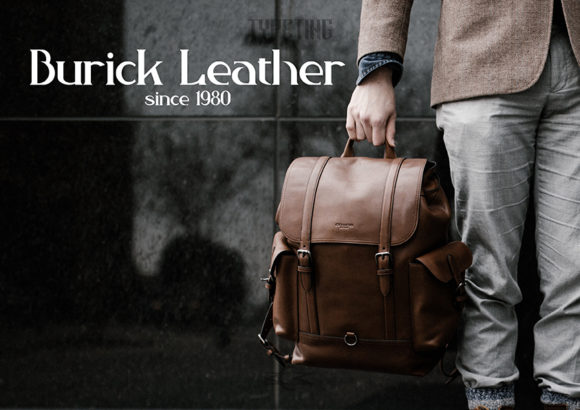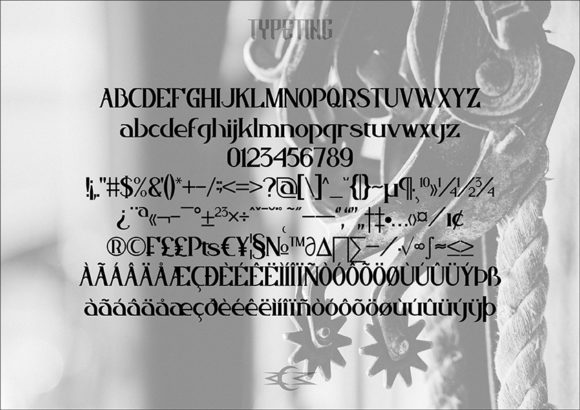
Gunslinger Font: A Timeless Classic for Vintage-Inspired Designs
Are you a designer or crafter looking for a font that exudes a bold, vintage charm? Look no further than the Gunslinger font! This classic font has been a staple in the design world for its rugged, yet elegant feel that’s perfect for a variety of creative projects. In this article, we’ll dive into the world of Gunslinger font, exploring its history, features, and uses, as well as provide tips on how to incorporate it into your designs.
A Brief History of Gunslinger Font
Gunslinger font has its roots in traditional Western typography, inspired by the classic fonts used in vintage posters, wanted signs, and newspaper headlines from the Wild West era. Its bold, rugged design was meant to evoke a sense of adventure, danger, and freedom – characteristics that are still associated with the American frontier spirit today.
Over the years, Gunslinger font has evolved to become a versatile and timeless classic, suitable for a wide range of design applications. Whether you’re creating a logo, poster, invitation, or craft project, Gunslinger font is sure to add a touch of vintage flair and sophistication.
Key Features of Gunslinger Font
So, what makes Gunslinger font so special? Here are some of its key features:
- Bold and rugged design: Gunslinger font boasts a bold, rugged design that’s perfect for making a statement.
- Vintage feel: Its classic design is reminiscent of traditional Western typography, evoking a sense of nostalgia and timelessness.
- High legibility: Despite its bold design, Gunslinger font remains highly legible, making it suitable for use in a variety of contexts, from headlines to body text.
- Versatile: Gunslinger font can be used in a wide range of design applications, from logos and posters to invitations and craft projects.
Uses for Gunslinger Font
Gunslinger font is perfect for any design project that requires a vintage, bold, and eye-catching look. Here are some ideas to get you started:
- Logos and branding: Use Gunslinger font to create a bold and memorable logo that’s sure to stand out.
- Posters and flyers: Gunslinger font is perfect for creating eye-catching posters and flyers that require a vintage flair.
- Invitations and stationery: Add a touch of elegance and sophistication to your invitations and stationery with Gunslinger font.
- Craft projects: Gunslinger font is a great choice for craft projects, such as handmade cards, scrapbooking, and DIY signs.
Tips for Using Gunslinger Font
Here are some tips for incorporating Gunslinger font into your designs:
- Pair with complementary fonts: Gunslinger font pairs well with clean, sans-serif fonts like Arial or Helvetica.
- Use contrasting colors: Use contrasting colors to make your text stand out and add visual interest.
- Experiment with sizes and styles: Don’t be afraid to experiment with different sizes and styles to create visual hierarchy and add emphasis.
Gunslinger font is a timeless classic that’s perfect for any design project that requires a bold, vintage look. Its rugged yet elegant design makes it suitable for a wide range of applications, from logos and posters to invitations and craft projects. With its high legibility and versatility, Gunslinger font is sure to become a staple in your design toolkit.